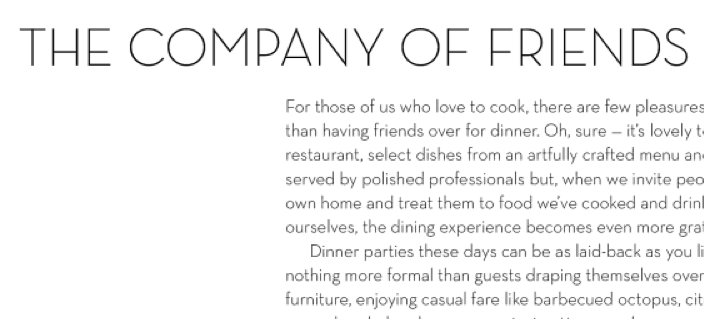
Barmeno Extra Bold on an Emergency Exit sign…
True, that is a bit weird. Barmeno: one of those faces that seems like a good idea, but the more you look at it the uglier and more dated it gets. Have used it as display type on book covers before a few years back, but in retrospect, perhaps it wasn't the best idea.
True, that is a bit weird. Barmeno: one of those faces that seems like a good idea, but the more you look at it the uglier and more dated it gets.
The weird thing about Barmeno is that it manages, as you say, to look horrible and dated, but without actually being dated to a specific period, so you can't even use it in a knowing, retro kind of way!
Does anybody know what this font is?
Please ... if anyone can help identify this font. I have looked everywhere to no avail.
Also stumped by stencil font
Just wanted to let you know that I also tried to identify your stencil font but haven't come up with anything either. I assume you ran it through Identifont already - there are lots of stencil fonts there but none that look quite like this one. The closest I got was AG Book Stencil, but that looks pretty much like Helvetica with a stencil effect:
Your font is more condensed and has those odd straight sides.
Can you tell us more about the font? Where did you find it and do you have any more text besides "HOWARD"? Any chance somebody just took a regular sans serif and modified to give it a stencil look? What do you need the font for? Are you trying to match it or do you just need something close?
Just wanted to let you know that I also tried to identify your stencil font but haven't come up with anything either. I assume you ran it through Identifont already - there are lots of stencil fonts there but none that look quite like this one. The closest I got was AG Book Stencil, but that looks pretty much like Helvetica with a stencil effect:
Your font is more condensed and has those odd straight sides.
Can you tell us more about the font? Where did you find it and do you have any more text besides "HOWARD"? Any chance somebody just took a regular sans serif and modified to give it a stencil look? What do you need the font for? Are you trying to match it or do you just need something close?
Neutra Face looks right to me
I think you already got it with Neutra Face - wondering why you don't think that's it.
Take a look on the foundry's website at the "Display Light" version - it looks just like the type in the book to me:
What particularly convinces me is that most of the capitals that have a middle stroke (like A, H and R) have it pretty low, but the B's middle stroke is much higher. The same is true of the type in your book. Unfortunately the Amazon previews are too low-res to really look at the lower case and I have to go with the all-caps titles.
I think you already got it with Neutra Face - wondering why you don't think that's it.
Take a look on the foundry's website at the "Display Light" version - it looks just like the type in the book to me:
What particularly convinces me is that most of the capitals that have a middle stroke (like A, H and R) have it pretty low, but the B's middle stroke is much higher. The same is true of the type in your book. Unfortunately the Amazon previews are too low-res to really look at the lower case and I have to go with the all-caps titles.
Hah, thanks! Yeah I didn't actually get the right variant...actually, I don't know why I thought it was different.
Well there you go, I'm blind to detail :| Thanks at least I can rest easy now knowing.
You guys seem to have a pretty good hit rate, I'm doing a job for these guys and they have no idea what font (protrace) this is but would like to keep it.
Any help would be fantastic.
Need help finding out what this font is???
this font is used in the film 'the next three days' in the title sequence and credits...would love to find out what it is!!! 🙂 i have tried all day to find out with no luck!
they are all very similar, except the font in the picture has rounded points on the end of the lines.
I think you'll find that the rounded appearance is most likely a product of being stamped into the metal, or from wear and tear on that same metal.
OTOH, the centre bar of the E looks much shorter in your sample than in Gotham. If you can live with the E being slightly different, I've found what appears to be a free version of Gotham Light that actually is rounded here.